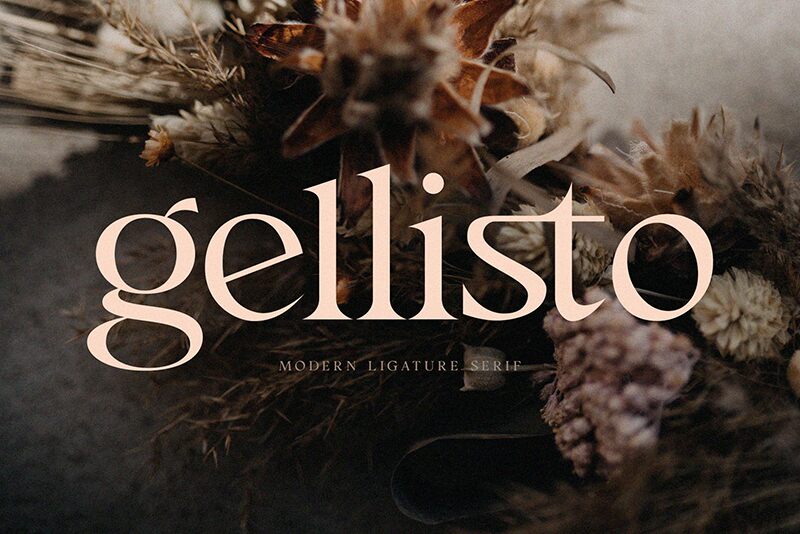
Gellisto
Gellisto, crafted by the artisans at Font Kingdom, is a serif typeface that exudes a unique blend of classical elegance and contemporary finesse. With its semi-light weight, Gellisto strikes a delicate balance between being assertive and understated, making it an ideal choice for designers looking to convey sophistication without overwhelming their layout.
The gentle curves and sharp serifs of Gellisto come together to create an aesthetic that is as versatile as it is visually engaging. Its slight contrast in stroke width lends an air of modernity, while the timeless serifs anchor the design in tradition. This harmonious combination ensures that Gellisto maintains high legibility even at smaller sizes, which coupled with its inviting character makes it suitable for both print and digital mediums.
Whether employed for body text in editorial settings or as a statement piece in branding and advertising, Gellisto's stylish allure ensures it stands out. Its potential extends to diverse creative projects—from book publishing to sophisticated web design—where its distinct personality can shine without overpowering other design elements. Embrace the subtle charm of Gellisto for your next project and let its unique character inspire your work.